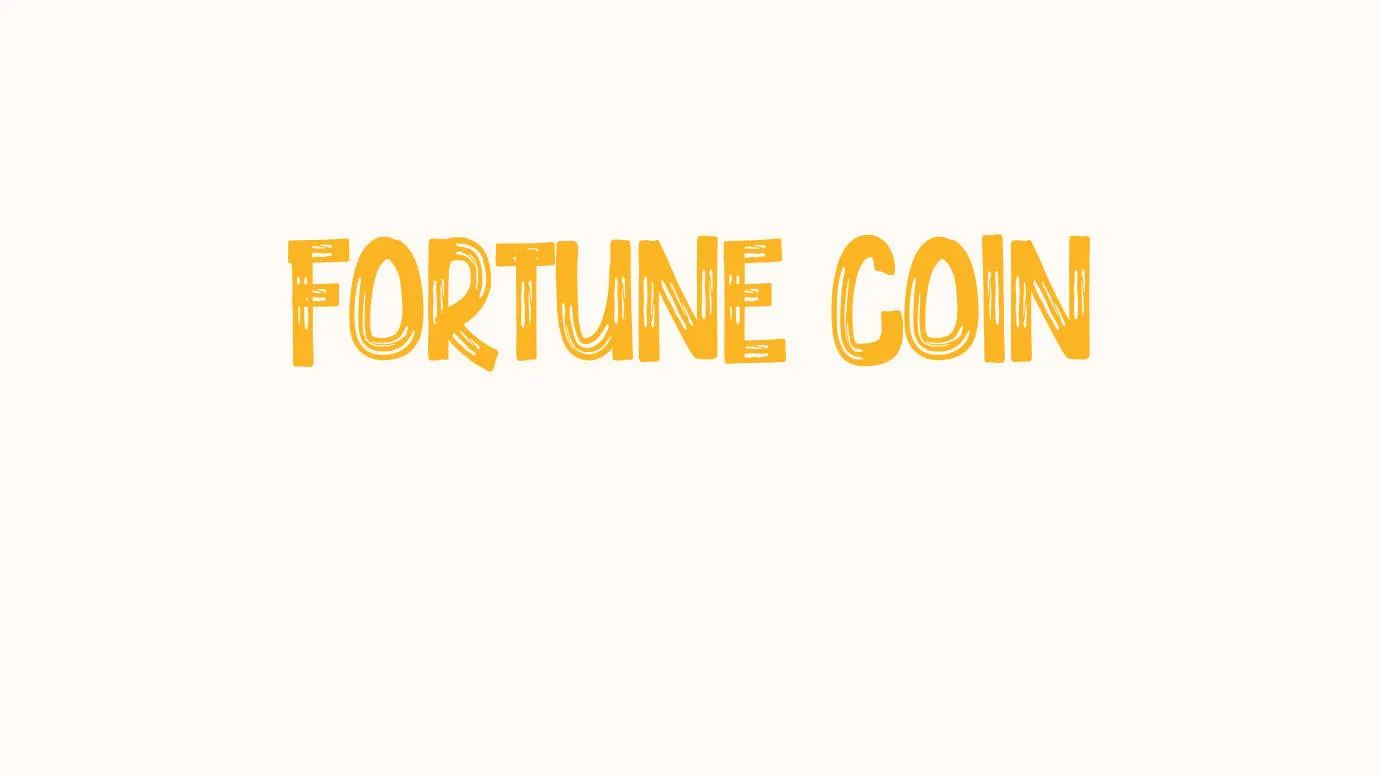
Fortune Coin is a very playful cartoon-type fancy font. This amazing font was designed by GasssType. The look of this font is very attractive and unique. It has amazing features as it contains 434 characters, 402 glyphs, and 1000 units per Em.
Unicode supports 2.0 and BMP only. The font’s weight is Semi-Bold and its width is medium(normal).
Fortune Coin Font Family